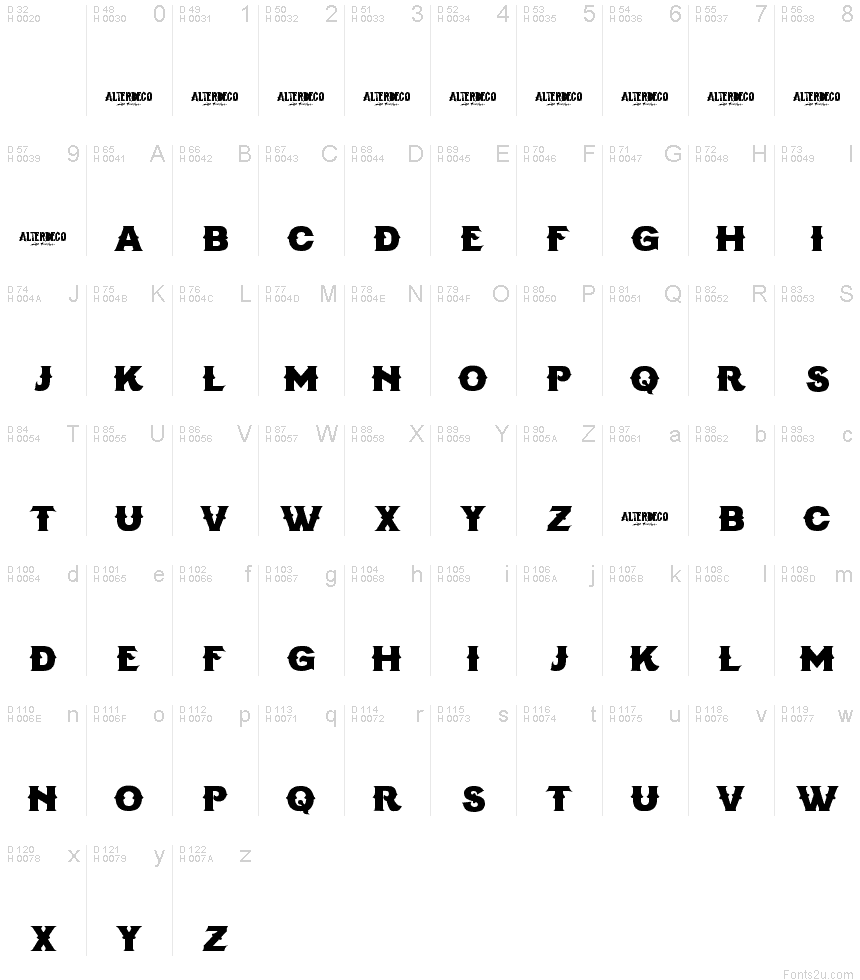
Dialog
DIALOG, is a bold vintage custom type, inspired by old school and dirty vintage typefaces from old classy rock posters. This is the free version and free for personal use, or commercial use (with permission). if you like to buy it, please go to http://creativespace.com/aditsaputra or contact me via helloadit@gmail.com